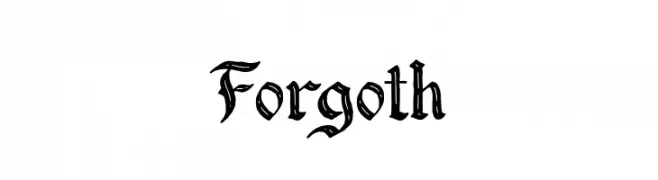
A gothic-inspired serif font with sharp, angular serifs and a dramatic flair.
A bold, gothic font with decorative elements like spider webs and bats, perfect for spooky themes.
A bold, angular font with a gothic, medieval aesthetic.
A bold, gothic-inspired font with high contrast and intricate details.
A decorative font with thorn-like embellishments, offering a gothic and organic appearance.
A bold blackletter font with sharp, angular lines and a gothic aesthetic.
A bold, gothic-inspired font with sharp edges and decorative elements.
A decorative, gothic font with occult and demonic motifs.
A bold, Gothic-inspired font with sharp, angular edges.
Gothic decorative font with gargoyle illustrations in framed glyphs.
A bold, gothic-inspired font with sharp, angular lines and a medieval touch.
A decorative font with gothic and macabre elements, featuring skulls and bones.
A decorative gothic font with intricate, sharp-edged letterforms.
A bold, ornate blackletter font with a gothic, medieval style.
A decorative and gothic font with intricate flourishes and high contrast strokes.
An ornate, gothic-style font with intricate flourishes and high contrast.
A bold, gothic-inspired font with sharp edges and distinct serifs.
A bold, gothic-inspired font with sharp, angular lines and dramatic serifs.